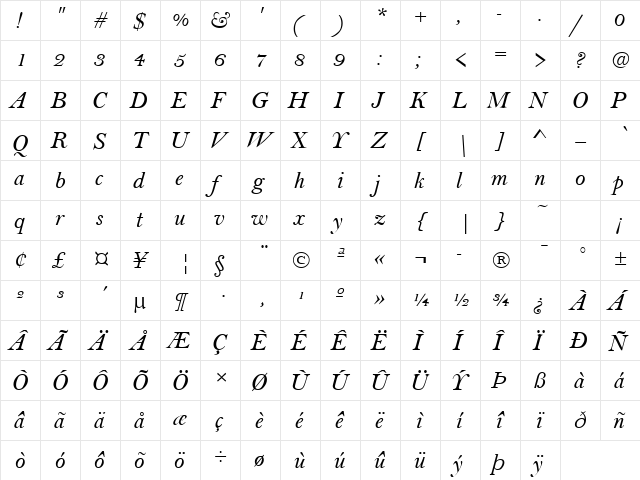
Beau Italic
Design Context for Beau Typeface
Beau takes a measured approach to typography — its balanced proportions and neutral character make it a reliable workhorse for both digital and print work. The dynamic lean of this cut emphasises speed and emphasis in any layout.
Pro Tip: Try Beau for annotation and caption copy alongside an upright companion — the contrast in angle creates a dynamic but ordered typographic system.